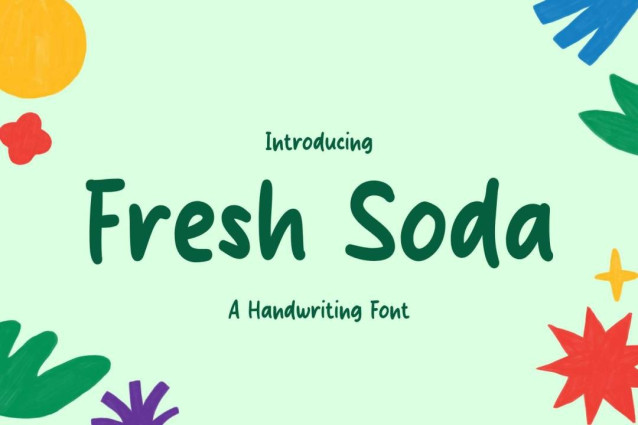
Fresh Soda Font
Fresh Soda Font is a simple and friendly handwritten font. Its natural and unique style makes it incredibly fitting to a large pool of designs. The only limit is your imagination!